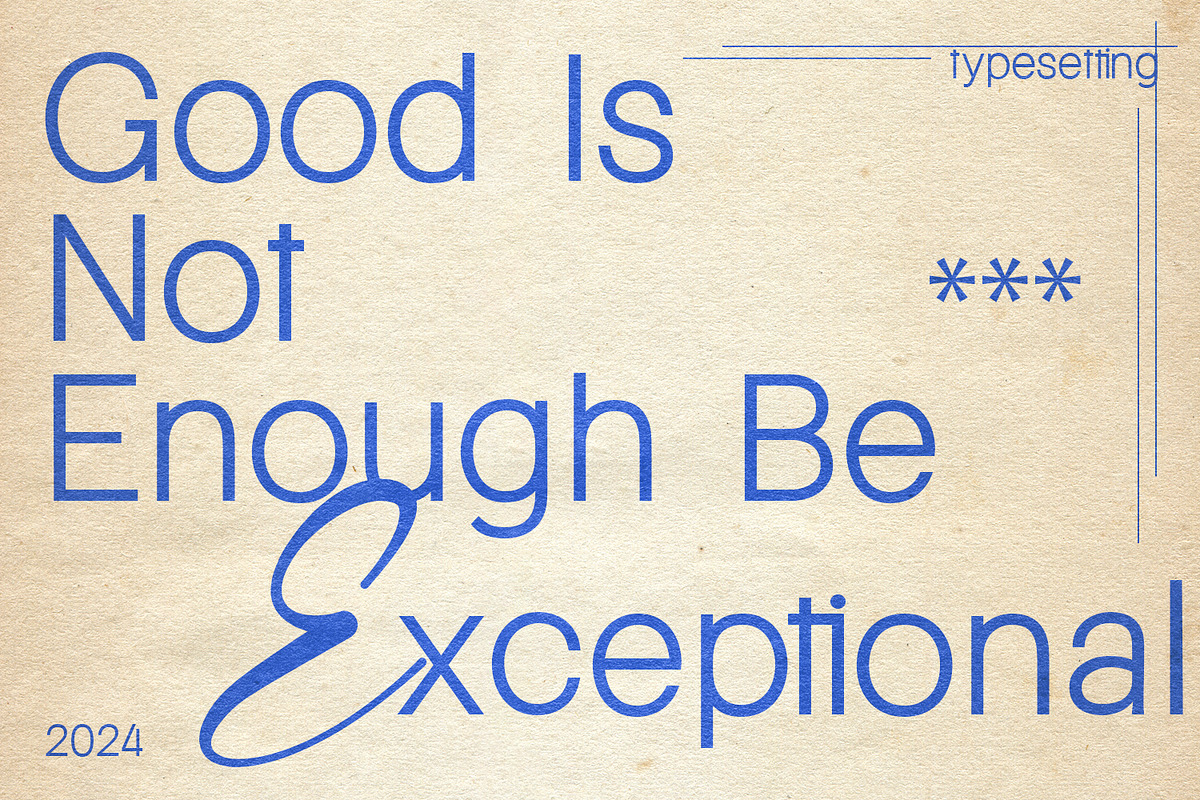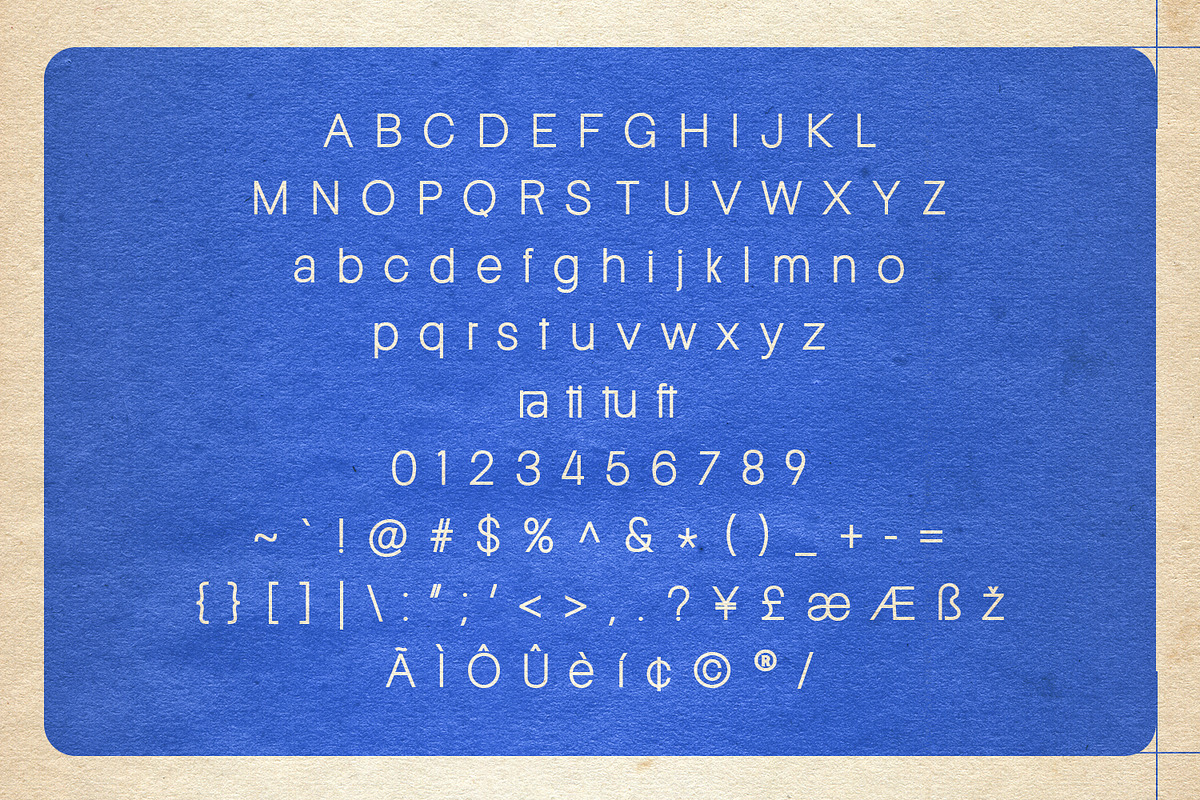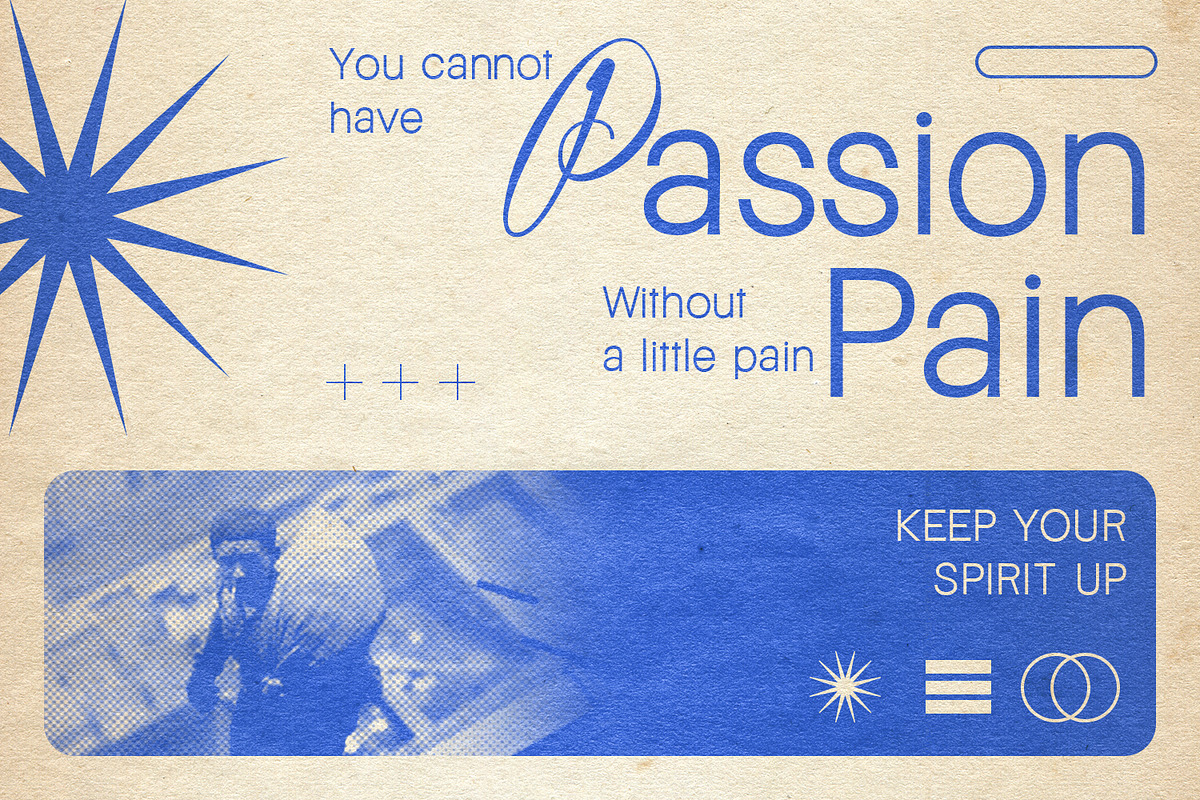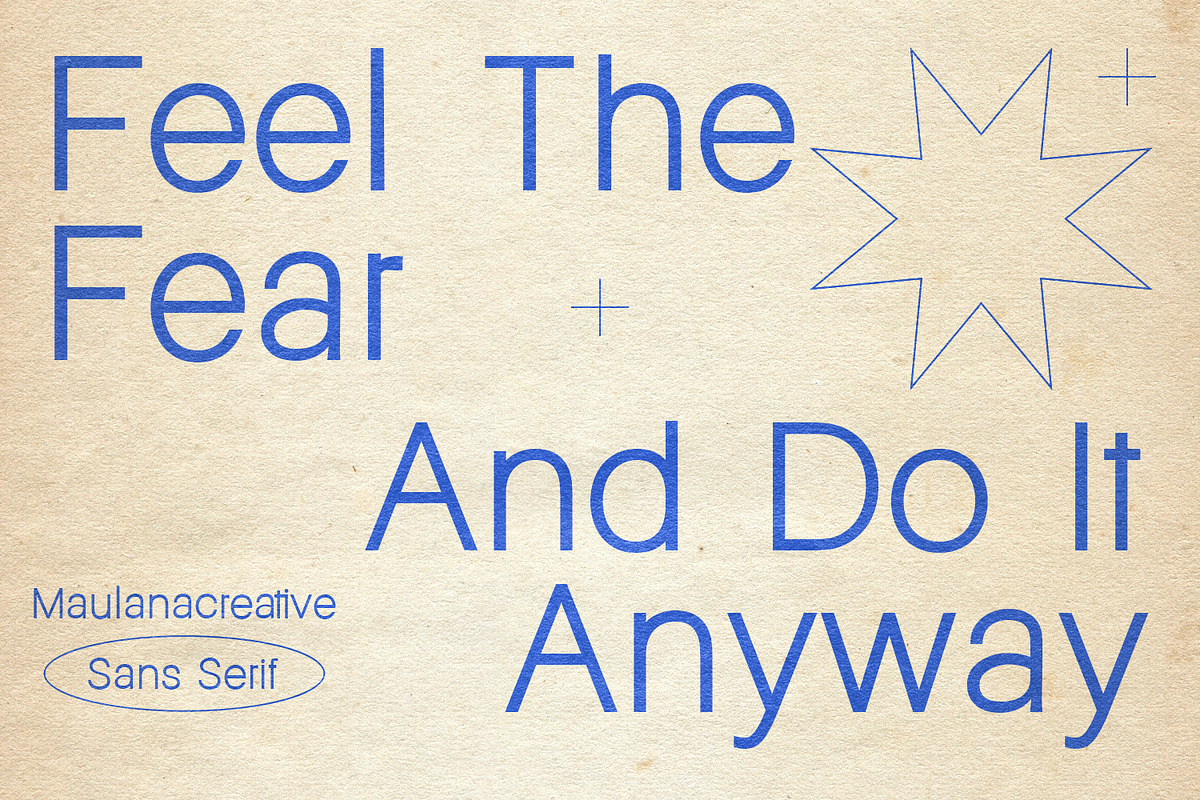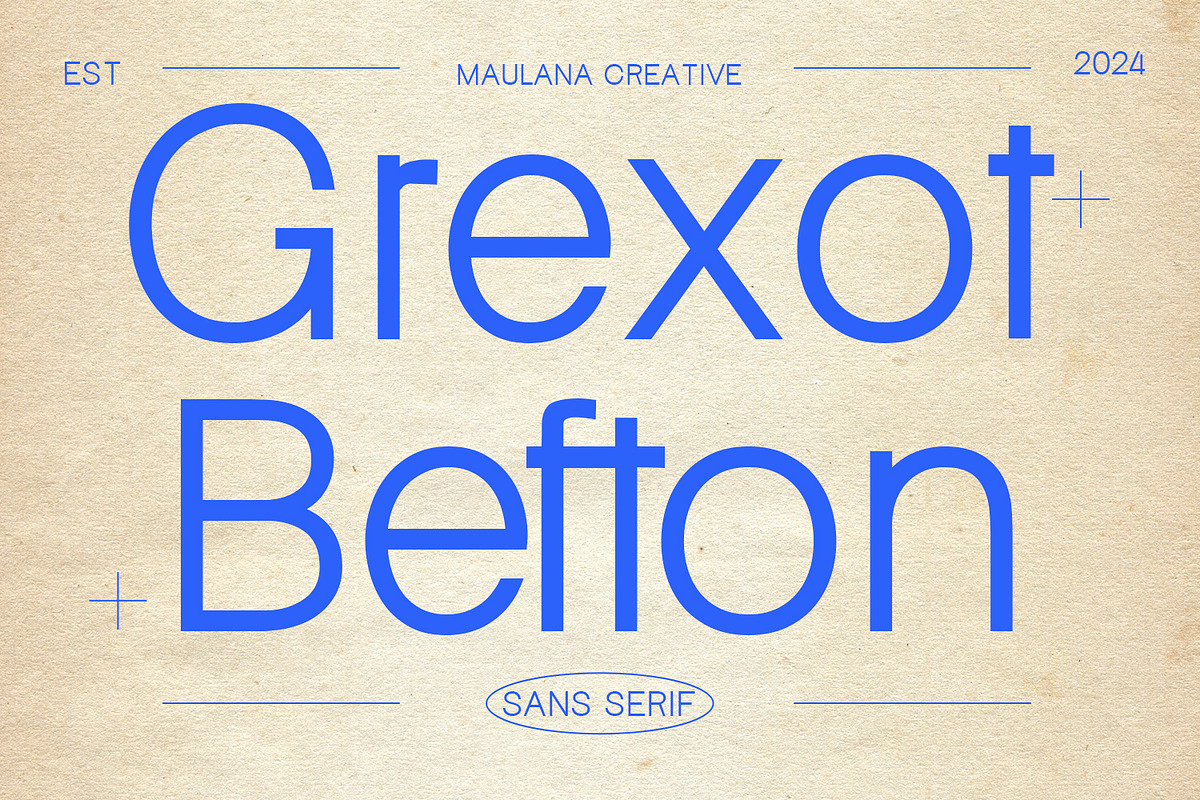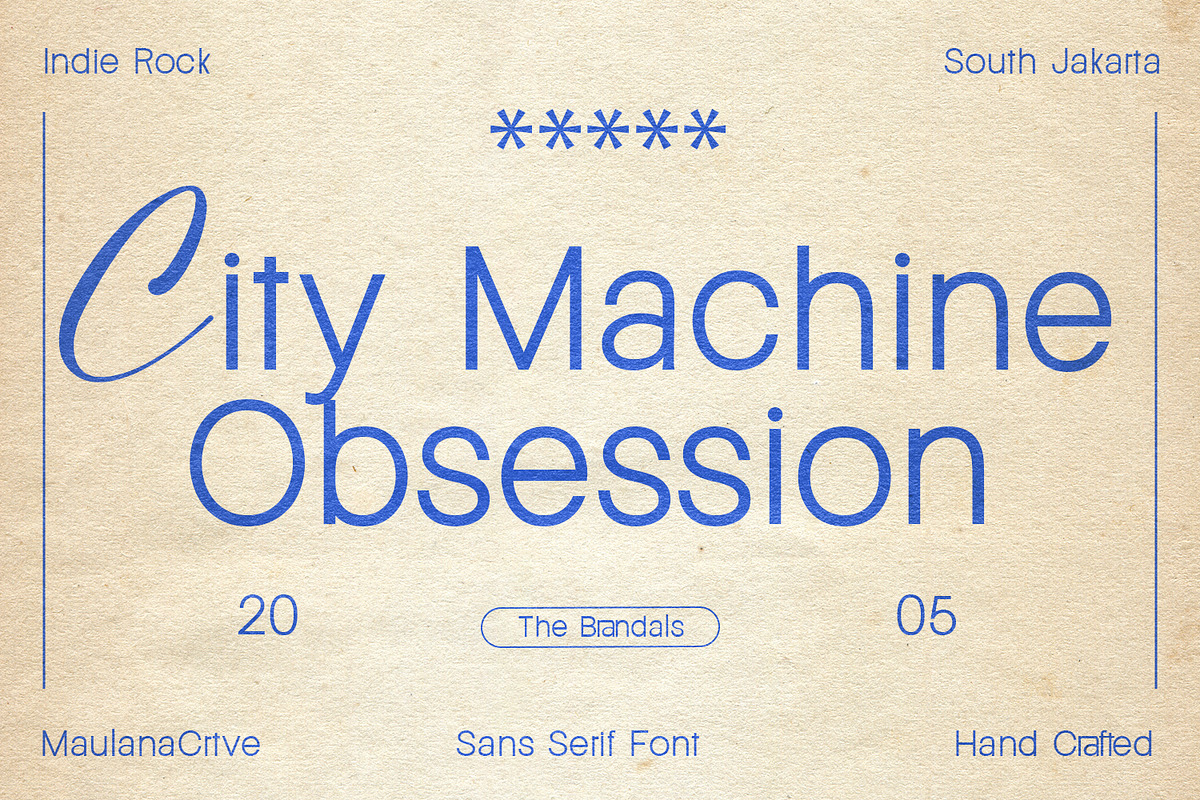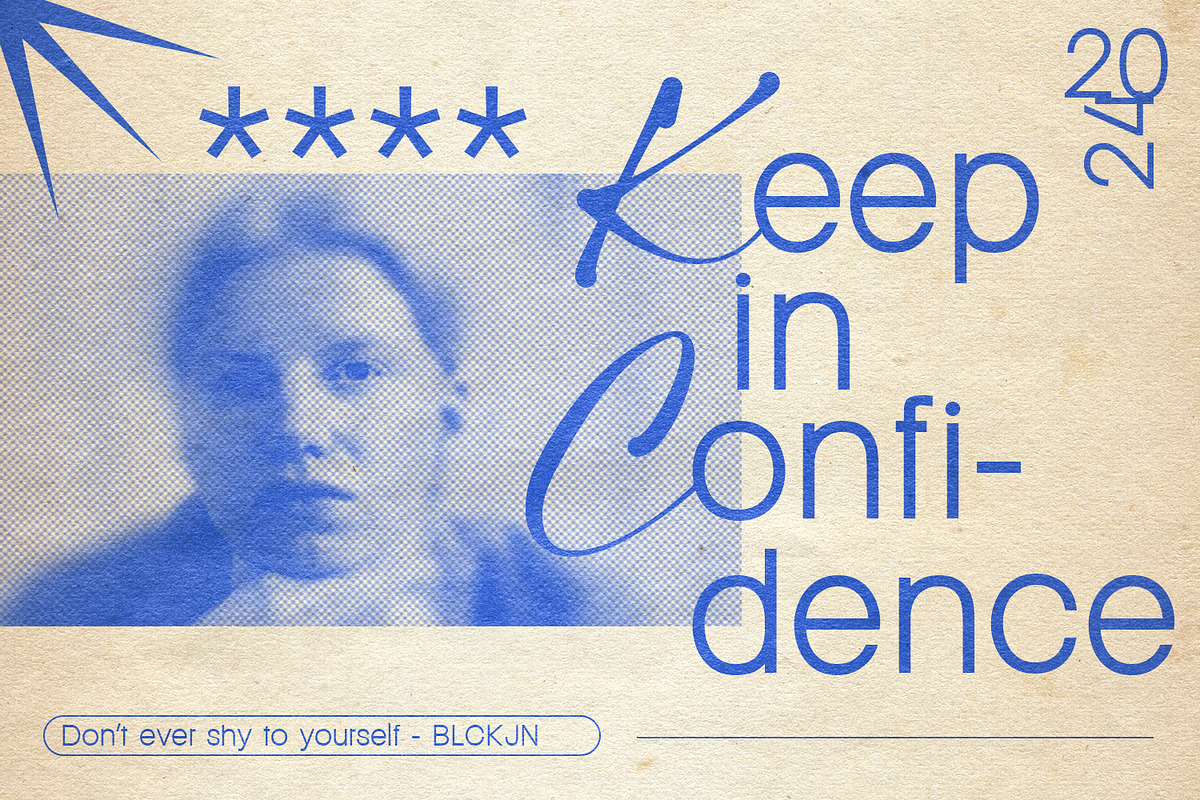
Grexot Befton Sans Serif Display Fon
Grexot Befton is a sans serif modern font. With bold tall and sharp stroke, fun character with a bit of ligatures. To give you an extra creative work. Grexot Befton font support multilingual more than 100+ language. This font is good for logo design, Social media, Movie Titles, Books Titles, a short text even a long text letter and good for your secondary text font with sans or serif. Make a stunning work with Grexot Befton font.